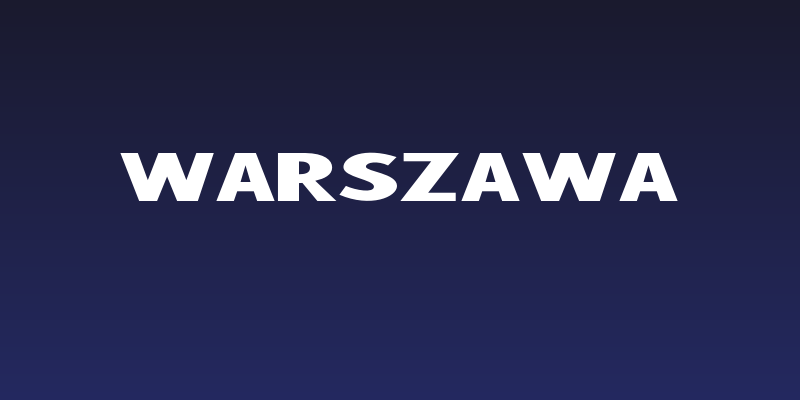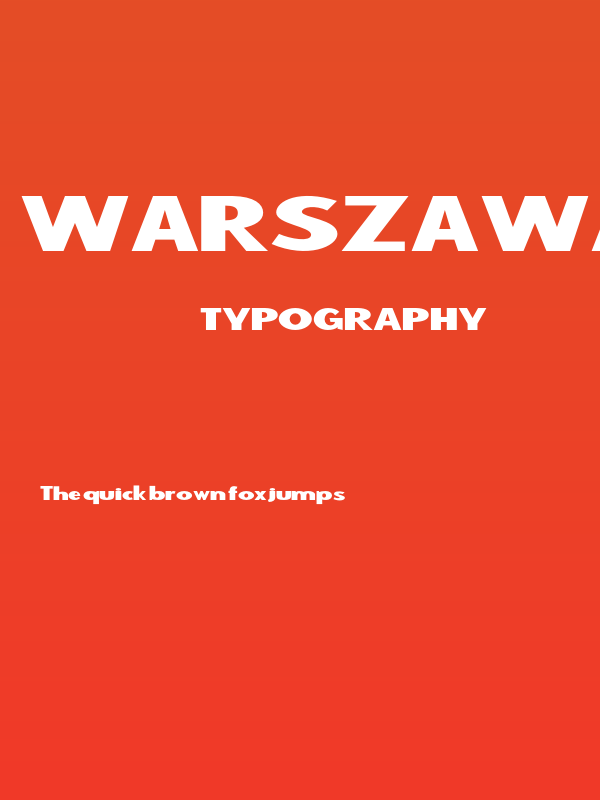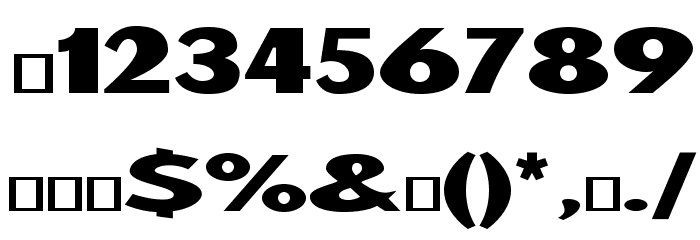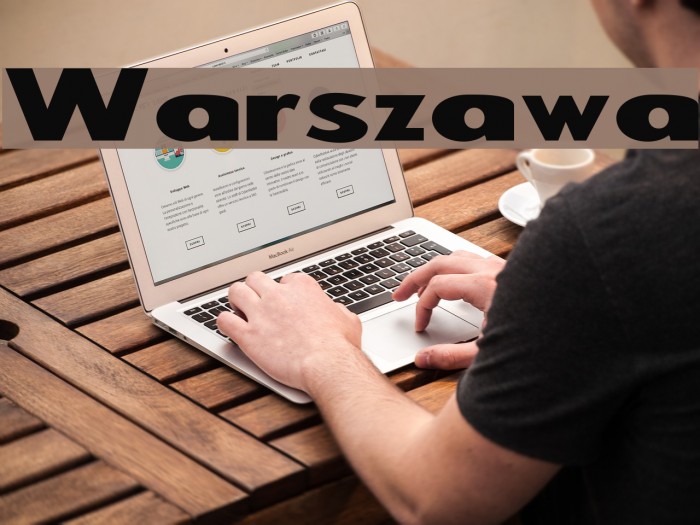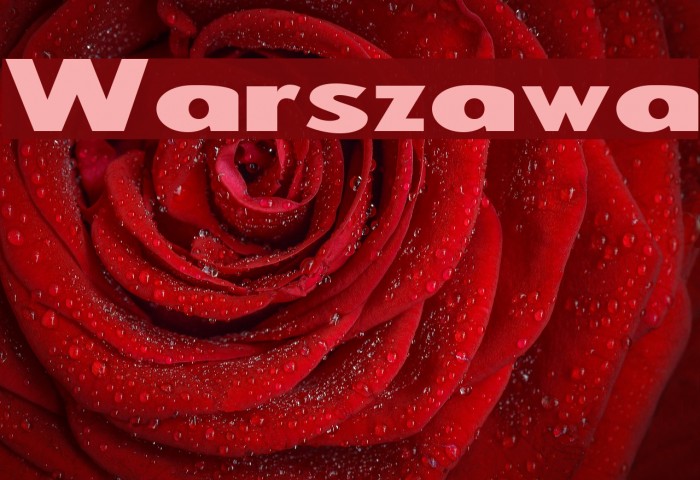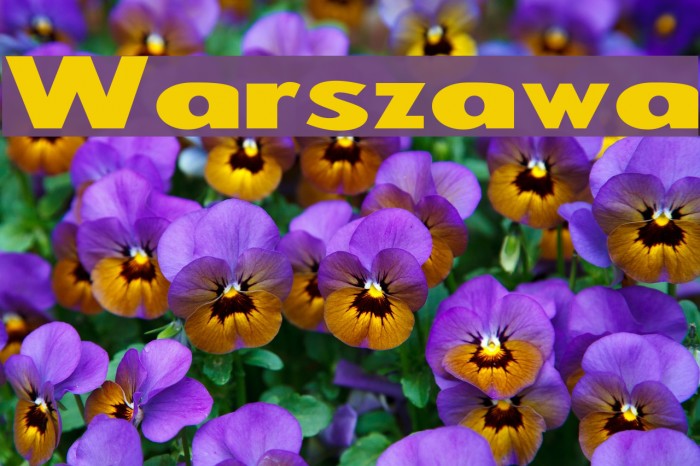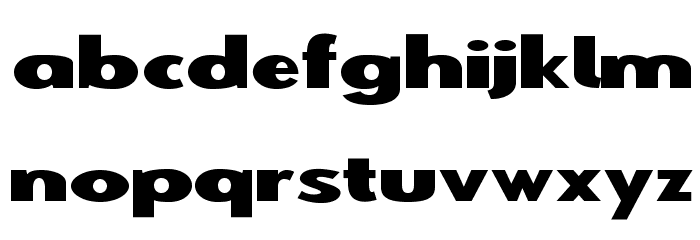
Warszawa Font
Warszawa Description
This font features bold, geometric letterforms with a strong presence. The uppercase letters are particularly striking, with a uniform thickness that conveys a sense of stability and confidence. The lowercase letters maintain this boldness while incorporating subtle curves, adding a touch of softness to the overall design. The numerals are equally robust, ensuring readability and impact. Special characters are designed to match the bold aesthetic, making them suitable for various applications. The font's clean lines and solid structure make it ideal for projects requiring a modern and assertive look.
| Proposed Projects | Ideal for branding, headlines, posters, and advertising materials. |